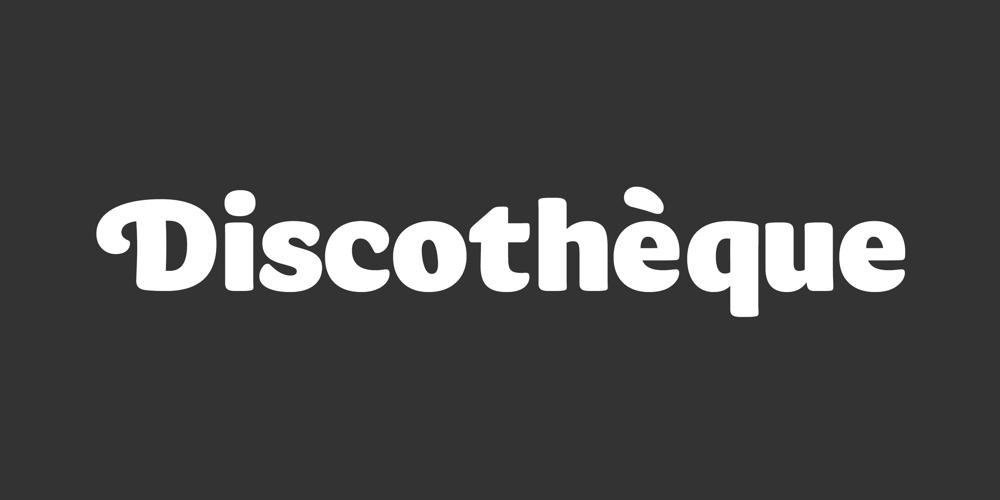
FS Pimlico Font Family was designed by Fernando Mello and published by Fontsmith. FS Pimlico contains 7 styles and family package options. Born in the 70sPersonal influences are unavoidable in type design and usually find their way through into finished fonts. At Fontsmith, one period in particular provides inspiration, according to FS Pimlico designer, Fernando Mello.“Jason and Phil have always known that I’m very into the visual language of the 70s. I know that Jason shares my love of the 70s and Phil will sometimes admit to being a fan, too. I think that’s the reason they were both so supportive in the development of this font.“And, of course, we all share an interest in good-humoured and intelligent design. We like to think it’s a Fontsmith characteristic.”Back from blackFS Pimlico started in an unusual place: with a tubby, penguin-like lowercase “a” that Fernando Mello had been sketching. From “a” grew the rest of the alphabet – a bubbly, fat, friendly family with a brush-written quality that became FS Pimlico Black.The black weight certainly isn’t the normal starting point for creating a regular and bold weight, but Fernando pressed on, driven by a glut of influences: brush-writing; Letraset and early digital systems catalogues; the type of Herb Lubalin and Tony di Spigna; 70s clothes and vinyl; and 70s revival disco nights in London’s Pimlico and Vauxhall.Natural or flourishedNot often do fonts come along that seem to span the ages. FS Pimlico is at home in an office environment providing a fresh clear identity in communications or providing text that’s clear and easy to read.But it likes to party, too, 70s style. With the OpenType features switched on, a designer can totally change the look of their work, and create point-of-sale, headlines and titles that stand out and get noticed.